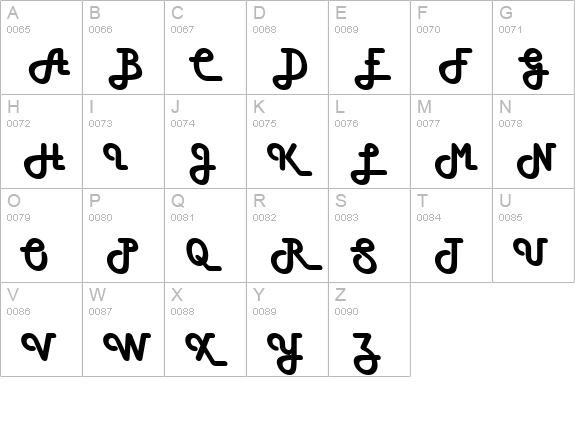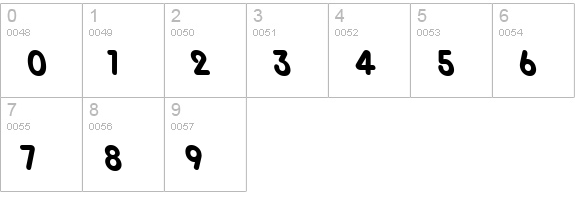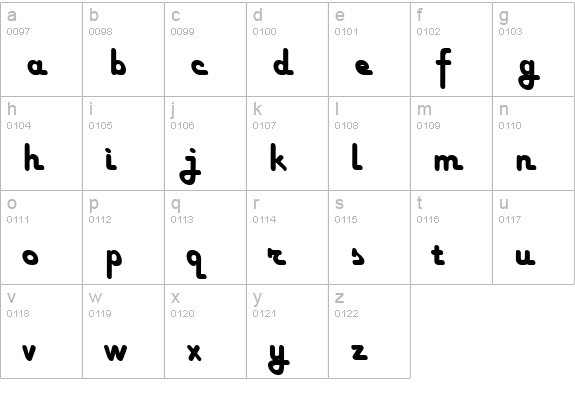
Happy Days Upright Font Details
Introducing Happy Days Upright, a delightful and playful font that exudes joy and positivity. This font is designed to bring a sense of happiness and excitement to any creative project, making it the perfect choice for those seeking a cheerful and lively typographic solution. Happy Days Upright is characterized by its upright and confident letterforms, showcasing a harmonious balance between rounded edges and sharp angles. Each letter is meticulously crafted, ensuring legibility and versatility across various mediums, from digital platforms to print materials. With its vibrant and energetic nature, Happy Days Upright is ideal for a wide range of applications. Whether you're designing a logo, creating eye-catching headlines, or crafting invitations for a joyous celebration, this font will effortlessly convey a sense of celebration and optimism. One of the best features of Happy Days Upright is that it is freely available to download at FontsMarket.com. This means that you can easily access and use this font in your projects without any restrictions or limitations. Embrace the freedom to add a touch of happiness to your designs, thanks to the accessibility of Happy Days Upright. So why not infuse your next design with a dose of joy? Download Happy Days Upright today and let its exuberant charm bring a smile to your audience's faces. Unleash your creativity and spread happiness with this delightful and freely accessible font.